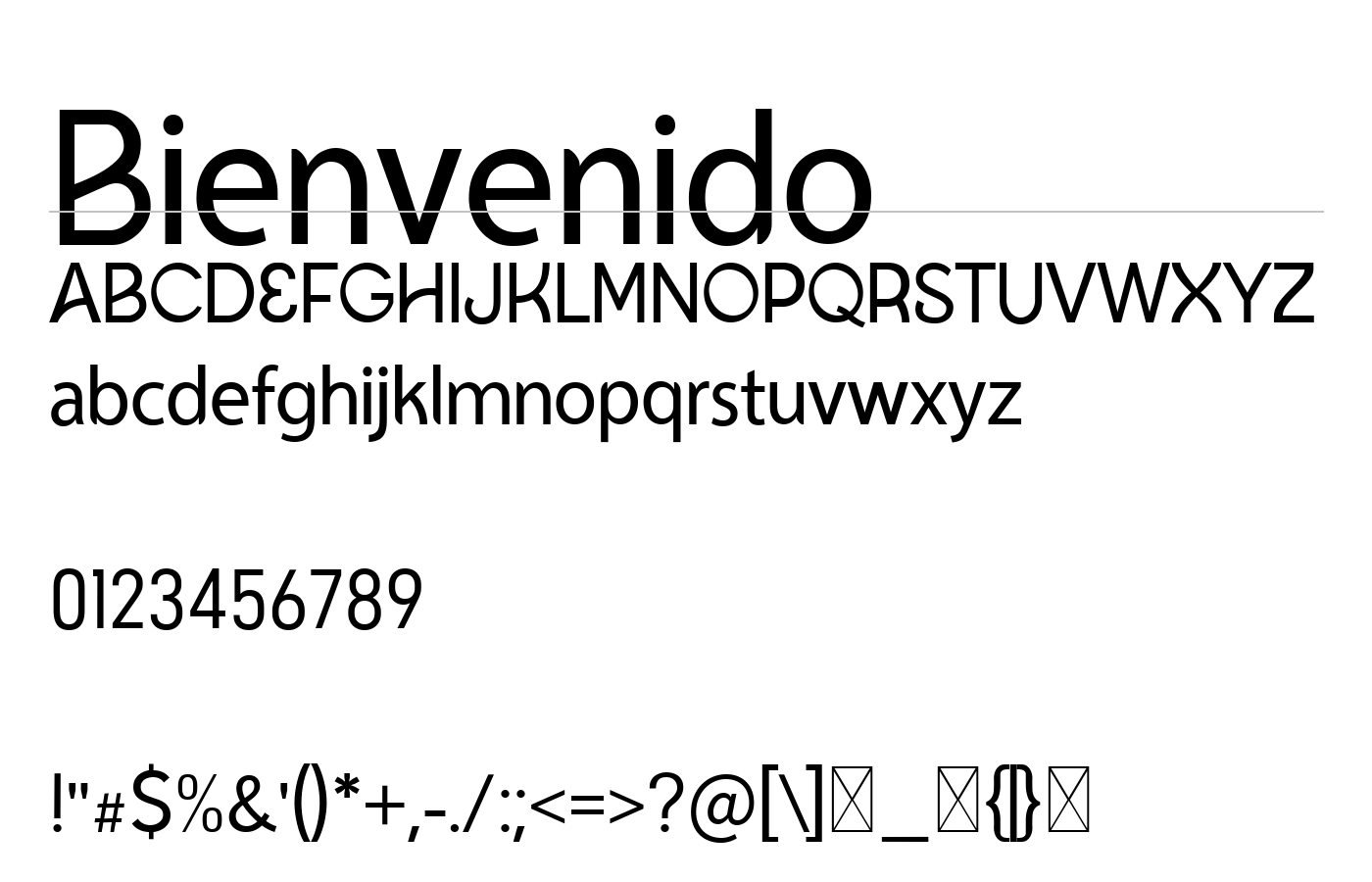
Bienvenido is a sleek, modern sans serif font characterized by its clean, geometric letterforms and a tall x-height that ensures excellent readability. Its light to regular weight and slightly condensed width give it an elegant and contemporary feel, making it ideal for stylish branding, editorial headlines, and digital interfaces seeking a fresh, sophisticated look. This font’s unique details, like the distinctive uppercase 'B' and sharp curves, add personality without sacrificing clarity, perfect for fashion, tech, and luxury design projects.
Bienvenido Font
About Bienvenido Font